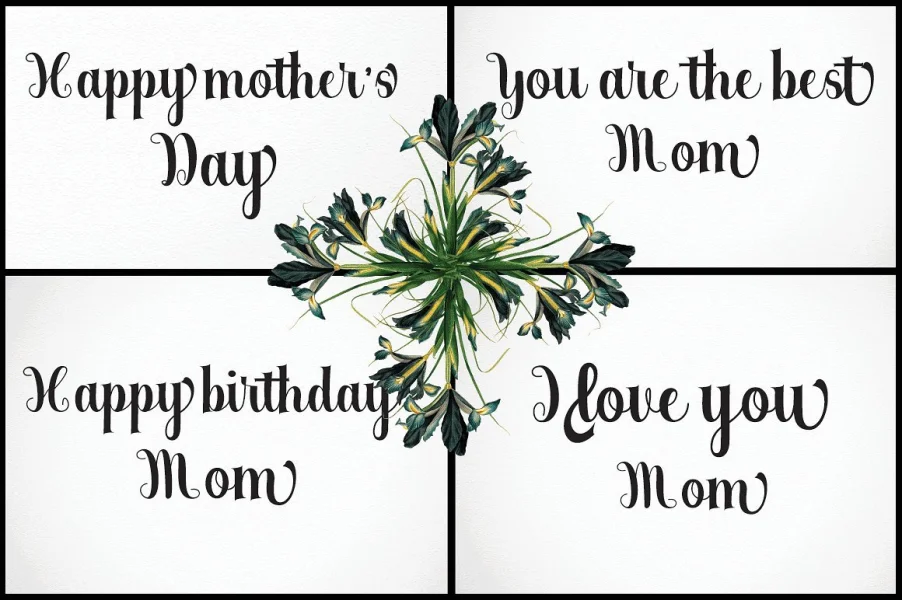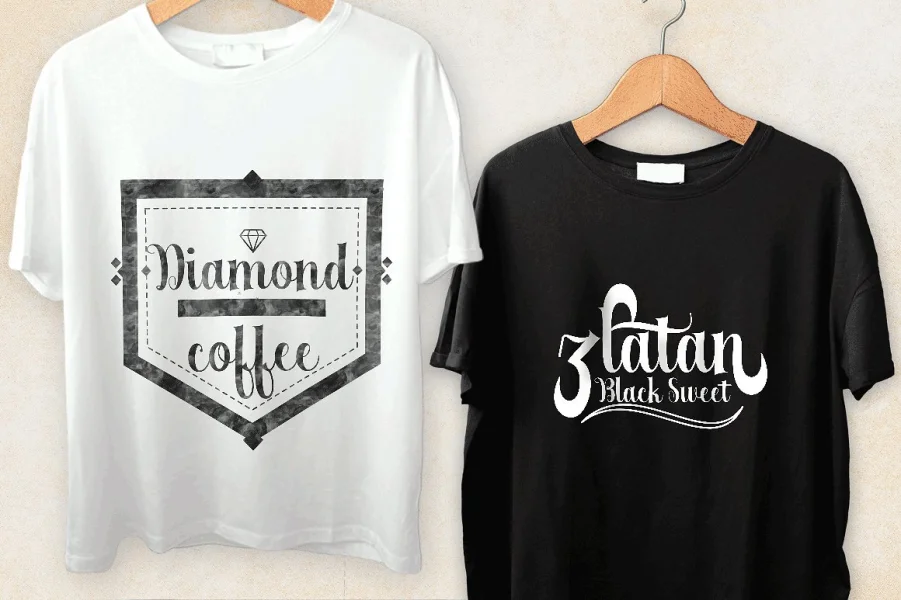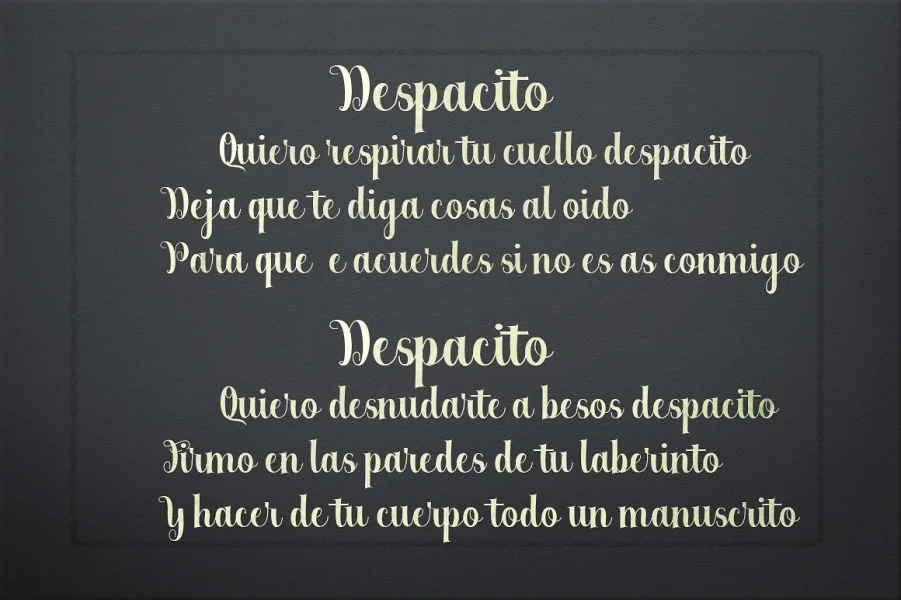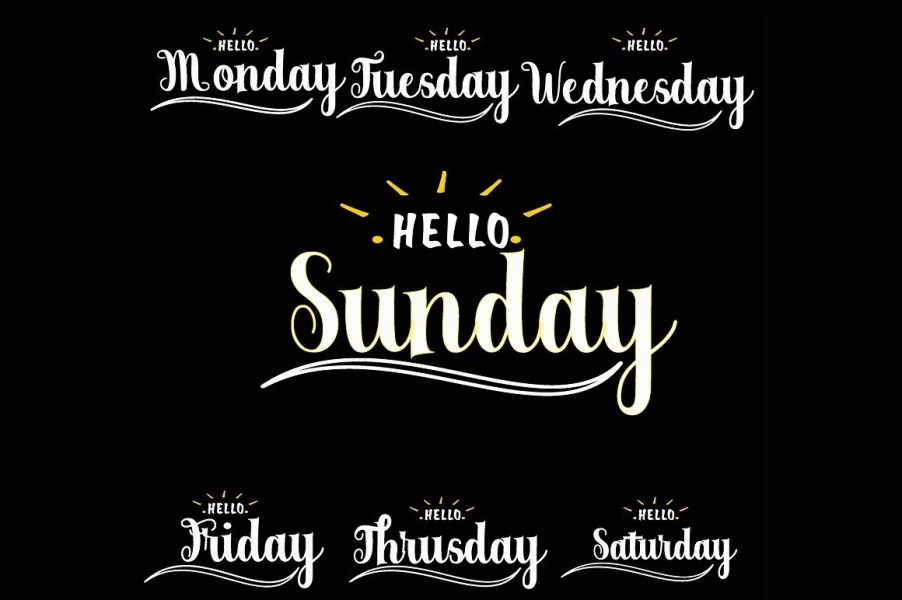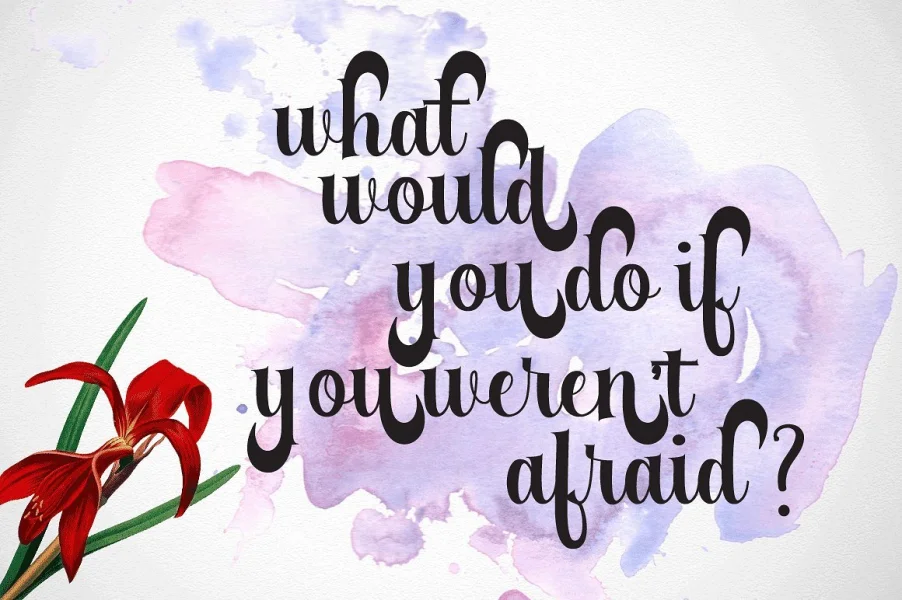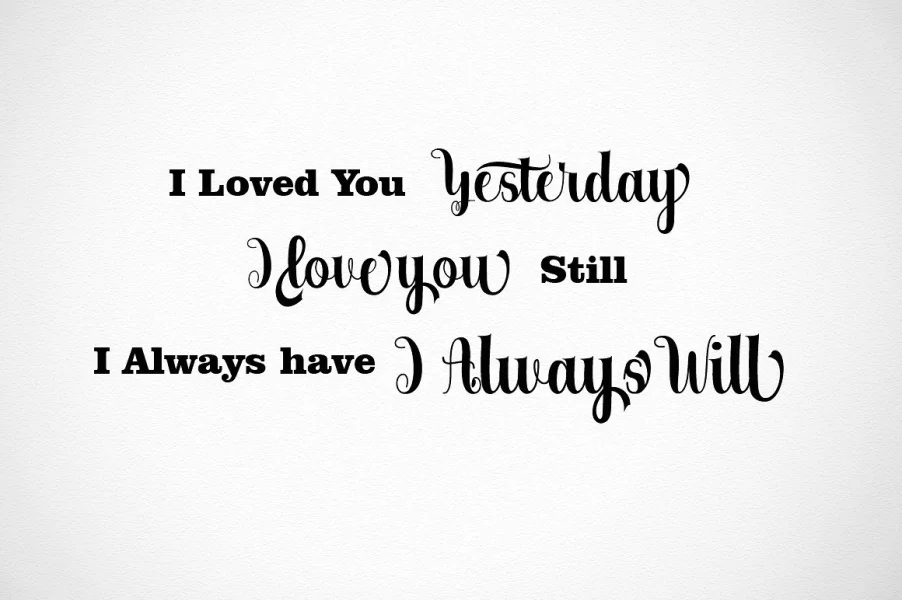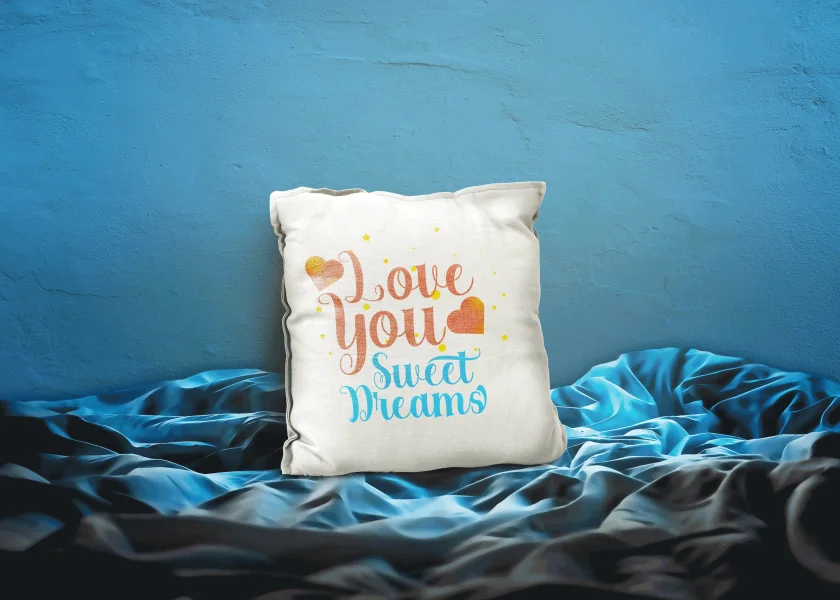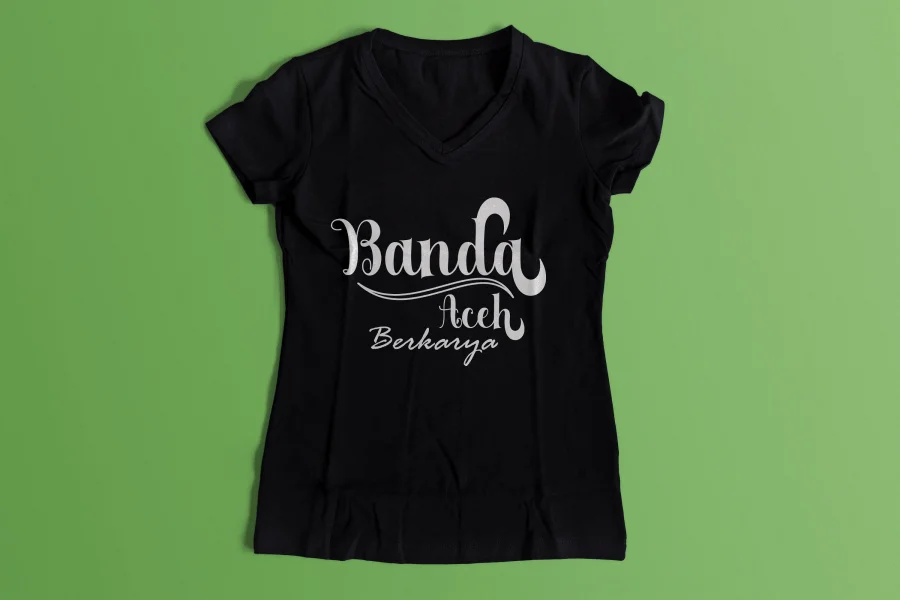
Berkarya Modern Calligraphy. This font was designed by handwriting, and it has a modern and unique forms of calligraphy, the writing style is very natural.